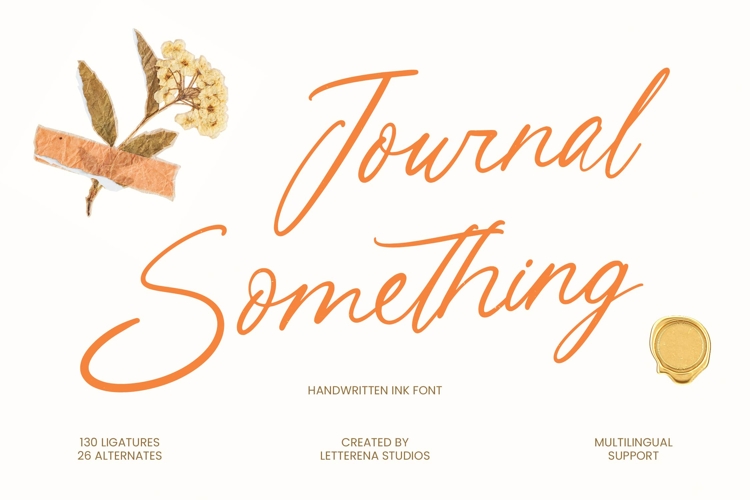
Journal Something - Handwritten Ink Font
Elevate your creative vision with a touch of organic elegance that speaks directly to the soul. Journal Something - Handwritten Ink Font is a masterfully crafted typeface that captures the fluid, rhythmic motion of natural ink on paper. Created by Letterena Studios, it offers an authentic aesthetic that bridges the gap between traditional penmanship and modern digital design, providing a visually stunning foundation for any high-end creative project.
Precision and beauty converge to define your unique brand identity with unparalleled grace. This typeface is the perfect solution for luxury branding, artisanal packaging, and sophisticated editorial layouts where a human touch is essential. Whether you are designing exquisite wedding invitations or upscale social media content, Journal Something - Handwritten Ink Font ensures your message is delivered with a sense of prestige and intimacy.
Global versatility is at the heart of this expressive typeface, ensuring your designs resonate across international borders. With its extensive multilingual support, Journal Something - Handwritten Ink Font adapts seamlessly across global markets, making it incredibly versatile for international projects. This expansive character set is further enhanced by 130 professional ligatures and 26 stylish alternates, allowing for limitless customization and a truly unique typographic signature.